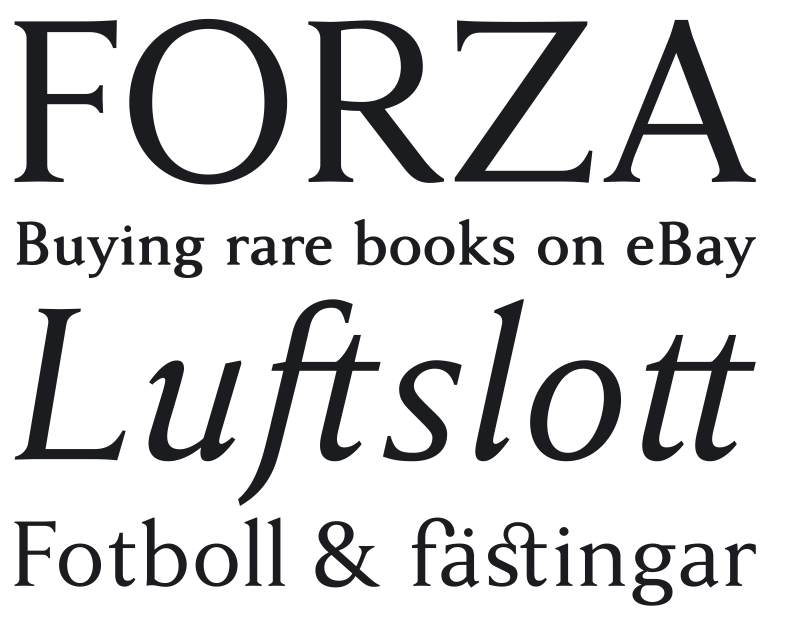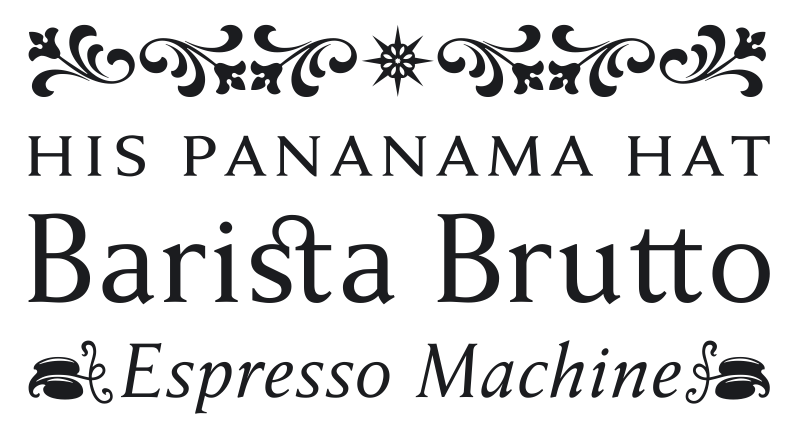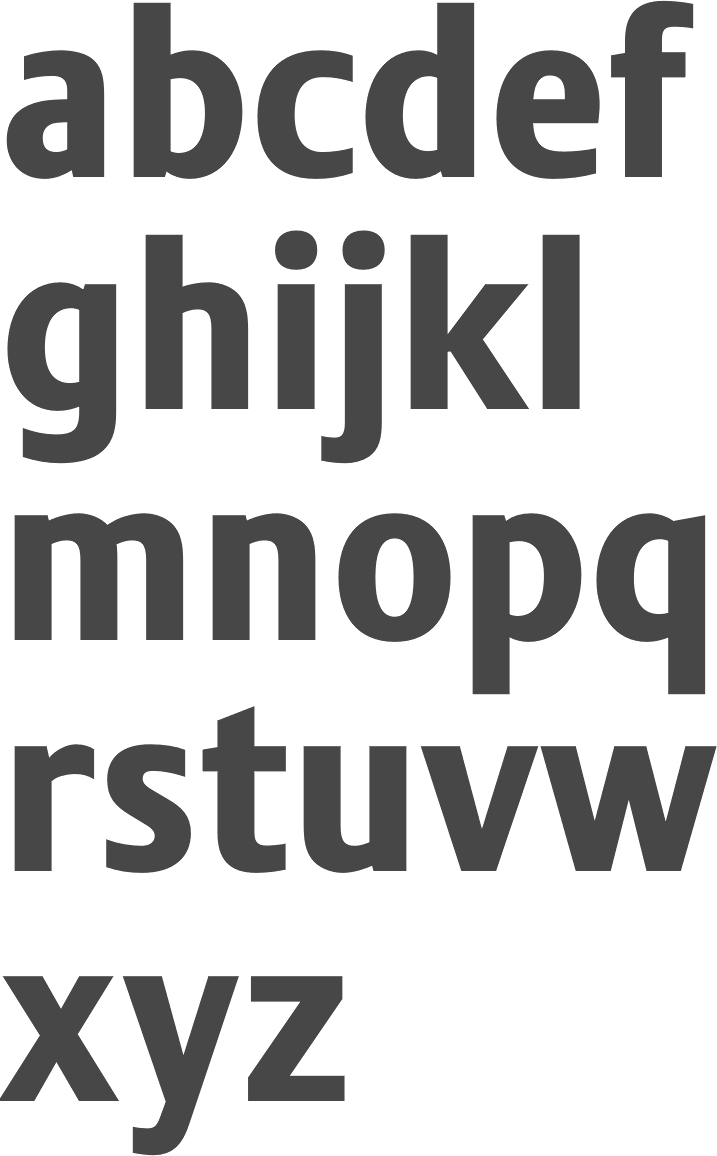
Peter Bruhn
Born in Malmö, Sweden in 1969, d. 2014. He started Fountain in 1994 in the same city. Peter Bruhn's typefaces: - [T-26] designer of these typefaces: 7Seconds, Anarko, Barbera, Bruhn Script, Capricorn38, CorpusGothic, Godlike, Leash, London-Seventy series, Mini (bird-themed dingbats), Pizzicato, RevivalBeta, Tainted.
- At Fountain, which he founded in 1994, one can buy these typefaces: Adrian (2007, after Frutiger's Breughel), Anarko, Artistico, Barbera, Bruhn Script, Capricorn 38, Corduroy, Corpus Gothic, Deliverance, Drunk, Fatso (now discontinued, but revived in 2007 as Wood Grotesque), Farao (2003, an egyptienne based on ephemera and old woodprints; note that Storm has a similarly named Egyptienne!), Floppy, Fluida (2007, a high contrast calligraphic script), Gas, Godlike, Ketchupa, Deuzhood (with Wolfgang Bruhn), Azteak (free initial caps set), Leash, London, Mayo, Mini, Mercury (1998; Mercury Alternative is free at FontShop), Mustardo (now available as FF Mustardo), Plumpo (2007, comic book face), Pussy, Revival, Sect, South (2007, sans), Sporty (2007, influenced by 1950s American pop culture), Squirt, Stalemate (2004: a clean sans serif, originally constructed as a proprietary font for a German IT-company. MyFonts says that Stefan Hattenbach made it...), T-Formula, T-Grumpy, Tainted, Udo, Unica, Doggystyle, Egg, Kundera, Maceo, Motha Fucka, Pavement, Sevenet (pixel family), Dopil, Partisan, Lipo-D (pixel font) and Jinichi (dingbat font of faces).
- His free fonts.
- He was working on the bitmap font Grape.
- Sydvenskan (2004, a paper for the tabloid by that name).
- The custom fun lettering typeface Oeresundsbron.
- Liquory (1995) was never released.